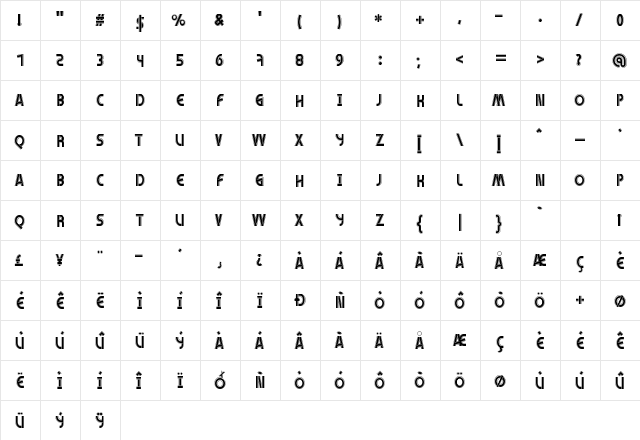
Brisquet Regular
| Foundry | Xerographer Fonts |
| Designer | Max Infeld - Xerographer Fonts |
Design Context for Brisquet Typeface
Brisquet takes a measured approach to typography — its balanced proportions and neutral character make it a reliable workhorse for both digital and print work.